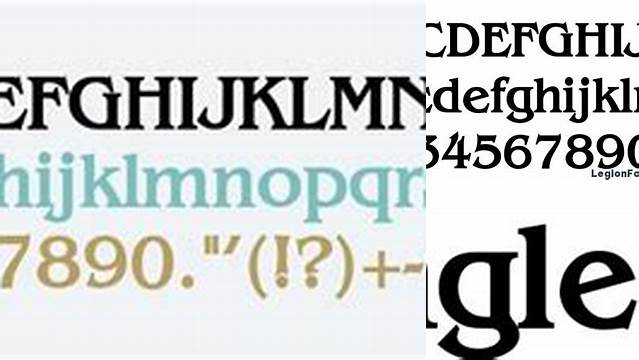
Free Bangle Bold Font: Download & Design Guide
Are you looking to spice up your design projects with a touch of boldness and elegance? Do you want a font that grabs attention and leaves a lasting impression? Well, you're in luck! This article is your ultimate guide to the Bangle Bold Font, including where to find a free download, how to use it effectively, and some creative ideas to get you inspired. So, buckle up, folks, because we're diving headfirst into the world of this fantastic font!
What is Bangle Bold Font?
First things first, what exactly is the Bangle Bold Font? In a nutshell, it's a modern and stylish typeface known for its thick strokes and eye-catching presence. Think of it as the cool kid on the block, the one everyone wants to be friends with. The font exudes confidence, making it perfect for headlines, logos, branding, and any design element where you want to make a statement. Its bold nature ensures that your text will stand out, drawing the reader's eye and conveying a sense of importance. It’s the kind of font that says, “Hey, look at me!” without being overly flashy.
One of the most appealing features of the Bangle Bold Font is its versatility. While it shines in larger sizes, it's also surprisingly readable even when used in smaller applications. This makes it an excellent choice for a wide range of projects, from website headers and social media graphics to print materials like posters and brochures. The font's clean lines and strong presence can add a touch of sophistication and modernity to any design. Plus, its inherent boldness means you don't need to do much else to make your text pop. You can use it on its own or pair it with other fonts to create a visually stunning composition. Whether you're a seasoned designer or just starting, the Bangle Bold Font is a valuable tool to have in your arsenal. It's like having a secret weapon that instantly elevates your designs. So, whether you are working on a personal project, a client’s campaign, or just experimenting, this font is a go-to choice. It’s a game-changer that can transform any design from ordinary to extraordinary.
The charm of Bangle Bold Font lies not only in its appearance but also in its impact. By using this font, you're making a statement – a statement of confidence, modernity, and style. The bold strokes convey a sense of strength and reliability, making it ideal for brands that want to project an image of trustworthiness. It works wonders when you want to communicate a clear and concise message. The font’s legibility ensures that your audience can easily understand your content, which is critical for both digital and print designs. With Bangle Bold Font, you're not just choosing a font; you're making a design decision that reflects the essence of your brand. This font is perfect for anyone who wants to infuse their designs with a dose of pizzazz. From a simple poster to a whole branding project, the Bangle Bold Font can really help to bring your design projects to life. This font has the power to transform any project from ordinary to extraordinary.